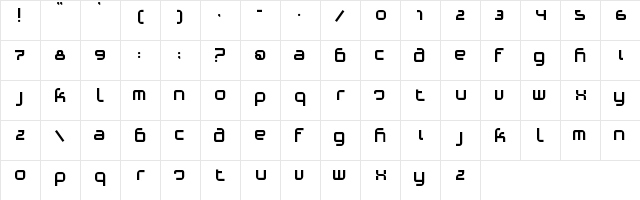
Phino (Variation) Regular
| Designer | K.Hachmang |
Design Context for Phino (Variation) Typeface
Phino (Variation) takes a measured approach to typography — its balanced proportions and neutral character make it a reliable workhorse for both digital and print work.